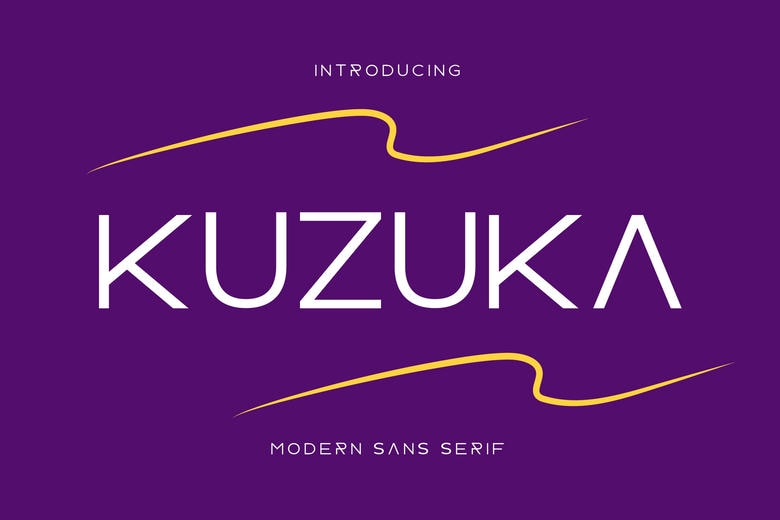
Kuzuka Font
Kuzuka is a clear and strong sans serif font that has a sharp line and little distraction. Created as an ode to contemporary aesthetics and functional typography, Kuzuka is modern and practical, simultaneously geometric and imposing, and it will work well in branding, poster, and logo design, digital interface and editorial layouts where coherence and emphasis are of the essence.
Kuzuka Sans Serif Font